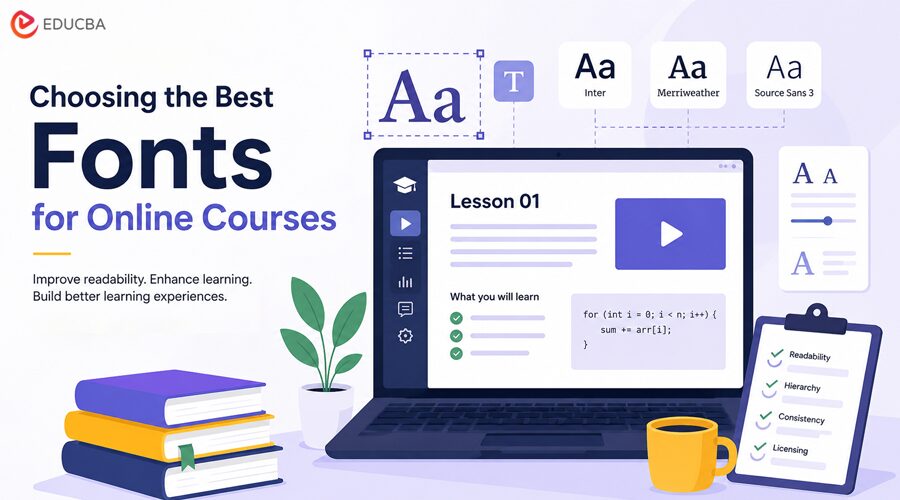
Typography is one of the easiest parts of educational design to underestimate. A course may have strong lessons, accurate examples, clear narration, and useful assignments, but poor font choices can still make the learning experience feel tiring, confusing, or unprofessional. Fonts affect how learners scan a slide, read a code example, compare numbers in a finance tutorial, follow steps in a software lesson, or complete a quiz on a phone. In online learning, typography is not only a visual decision. It supports comprehension, pacing, accessibility, trust, and course completion. A good educational font system should help learners focus on the material instead of the interface. This guide explains how to choose fonts for online courses, tutorials, LMS platforms, video lessons, slide decks, worksheets, and educational websites without creating readability, consistency, or licensing problems.
Why Fonts Matter in Online Learning?
Online education depends on attention. Learners may watch a lesson on a laptop, review notes on a tablet, take a quiz on a phone, or read a transcript in a browser. Typography has to work in all those contexts. Poor typography increases friction. If body text is too small, learners skim less, if headings are weak, lessons feel harder to navigate. If code, formulas, captions, and definitions all look the same, the course becomes harder to follow.
Typography helps educational content by improving:
- Scanning speed
- Reading comfort
- Hierarchy between topics
- Consistency across lessons
- Clarity in tables and examples
- Accessibility for different learners
- Trust in the course provider
- Navigation inside an LMS or tutorial page
Typography as Part of Instructional Design
Instructional design is not only about lesson order and assessment. It also includes how information appears on screen. A strong font system helps separate:
- Concept explanations
- Definitions
- Examples
- Warnings
- Formulas
- Code snippets
- Quiz prompts
- Captions
- Downloadable resources
When learners can instantly recognize the role of each text element, they spend less effort decoding the layout and more effort understanding the subject.
6 Steps to Choosing the Best Fonts for Online Courses
The following steps will help you choose the best fonts for online courses, ensuring a professional, user-friendly, and effective learning experience.
Step 1: Prioritize Readability Across Screens
Readability is the first rule of educational typography. A course font may look stylish in a large hero banner but fail in long reading sections, quiz screens, or slide notes. For online learning, test fonts in the smallest and most practical contexts first. If a font works in captions, mobile paragraphs, labels, and tables, it will probably work in larger headings too.
| Learning Context | Typography Priority | Common Risk |
| Lesson page body text | Comfortable reading for long sessions | The font is too small or too condensed |
| Slide decks | Fast scanning from a distance | Thin weights disappear |
| Video captions | Clear shapes at small sizes | Decorative fonts reduce comprehension |
| Code tutorials | Distinguishable characters | Similar-looking 0/O, 1/l, or brackets |
| Finance tutorials | Clear numbers and symbols | Weak numerals make tables confusing |
| Quizzes | Direct question and answer hierarchy | Options look too similar |
| Mobile learning | Legibility on narrow screens | Line length and spacing become cramped |
| Certificates | Professional appearance | Overly casual fonts reduce credibility |
Readability Checks Before Publishing
Before using a font in a course, test it with real course material:
- Lesson paragraphs
- Module titles
- Video captions
- Definition boxes
- Tables and charts
- Quiz screens
- Mobile layouts
- Downloadable worksheets
- CTA buttons
A font should not be approved from a single preview word. It should be tested inside the learning environment where students will actually read it.
Step 2: Match Fonts to the Learning Format
Different learning formats need different typographic behavior. A coding tutorial, an Excel lesson, a marketing course, a design course, and a healthcare training module do not use text in the same way.
| Course Type | Font Direction | What to Watch |
| Programming/coding | Sans serif plus monospace font | Clear symbols, brackets, numbers, and indentation |
| Finance/ Excel | Sans serif with strong numerals | Tables, decimals, percentages, and formulas |
| Design tutorials | Flexible sans serif or editorial serif accents | Visual personality without hurting clarity |
| Business courses | Professional sans serif or restrained serif | Trust, hierarchy, and slide readability |
| Healthcare training | Humanist sans serif | Calm tone and accessibility |
| Language learning | Font with broad character support | Accents, diacritics, punctuation, and scripts |
| Data science/analytics | Sans serif plus readable mono | Charts, labels, code, and equations |
| Personal development | Warm sans serif or soft serif | Approachable tone and long-form readability |
Monospace Fonts for Technical Courses
Coding and data courses often need a monospace font. A good monospace typeface makes code easier to scan because every character occupies the same width. This supports alignment, indentation, and comparison.